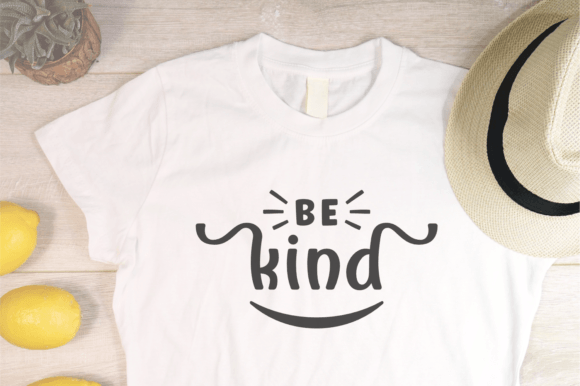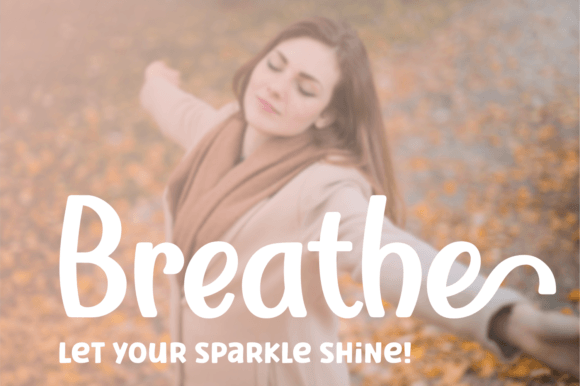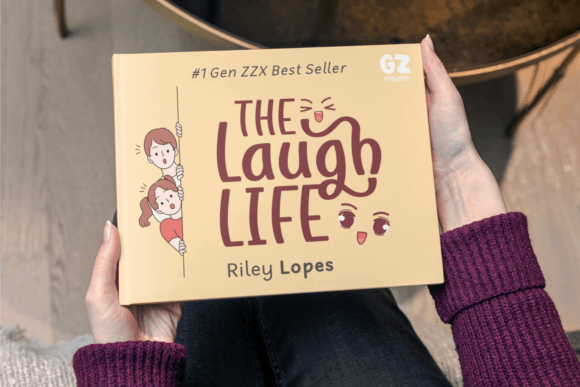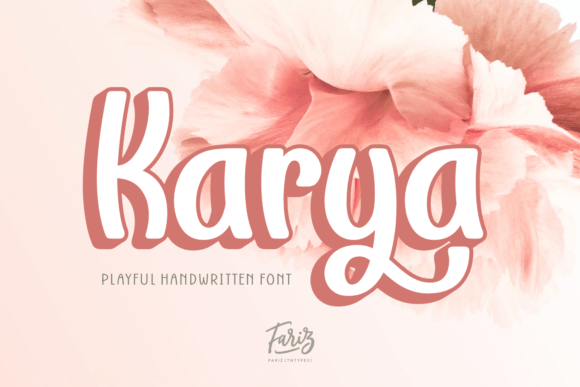
Introduction to Karya Font
Karya is a playful and eye-catching display font that is perfect for projects that require a fun and lively touch.
Its bold and colorful design is sure to grab attention, while its unique shapes and whimsical details add an element of charm and creativity Ideal for branding, advertising, and any project that needs a font that stands out from the crowd.